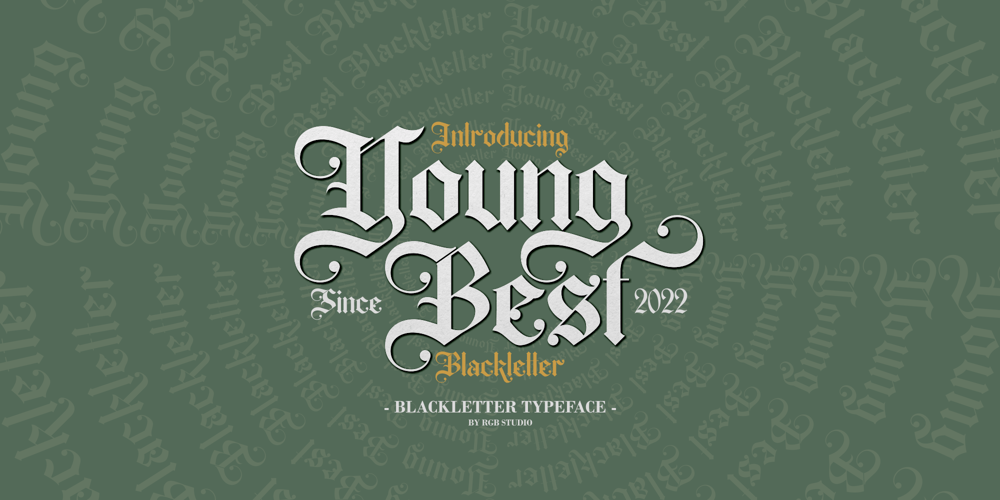
Young Best Font Family was designed by MOH. MA’IN and published by RGB Studio. Young Best contains 1 styles and family package options. Young Best is a font inspired by the Blackletter typeface, made with a modern impression but still looks strong and unique. Supported by alternative options such as swash and alternative characters, making Young Best font very easy to create designs with strong or dark themes. In addition, Young Best font is also supported with multilingual characters that can be used in several international languages. Young Best font is very suitable for use in making music album cover designs, tattoo logos, wishkey labels, packaging pomades and so on which are made with dark and strong concepts.Files Include : Basic Latin A-Z and a-z Numbers Symbols PUA Encode Multilanguage Support In order to use the beautiful swashes, you need a program that supports OpenType features such as Adobe Illustrator CS, Adobe Photoshop CC, Adobe Indesign and Corel Draw. but if your software doesn’t have Glyphs panel, you can install additional swashes font files.Thanks and have a wonderful day, If you have any questions, please get in touch with usDon’t forget to check out our other products.